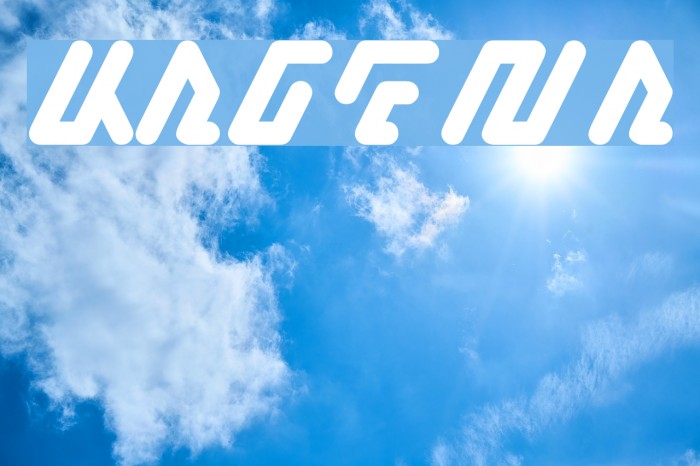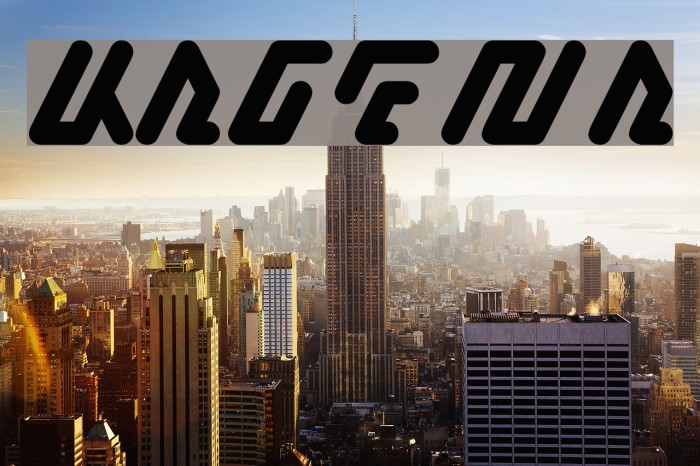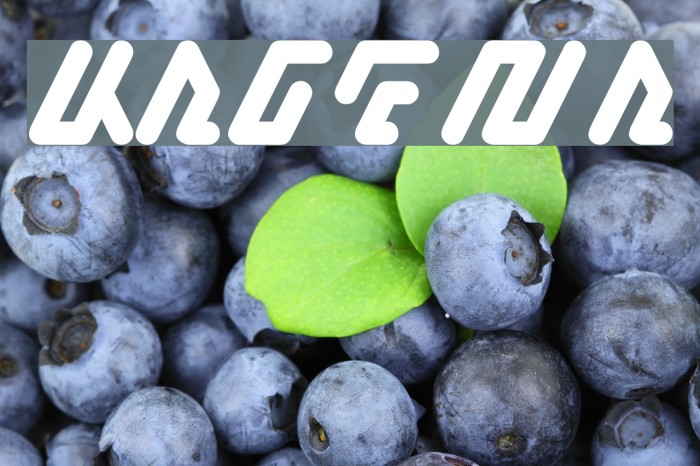
KAGENA Font
KAGENA Description
This font features a bold, futuristic design with a strong emphasis on angular lines and geometric shapes. The characters are slanted, giving a sense of motion and dynamism. The uppercase and lowercase letters share a consistent style, with sharp edges and a uniform thickness throughout. Numbers and special characters maintain the same bold and angular aesthetic, ensuring a cohesive look across all elements. The font's unique style makes it stand out, ideal for projects that require a modern and edgy appearance.
| Proposed Projects | Ideal for sci-fi themed designs, technology branding, video game titles, and modern advertising campaigns. |